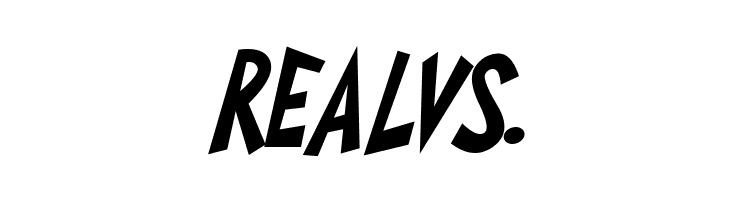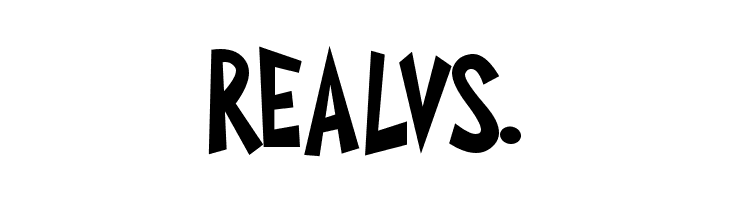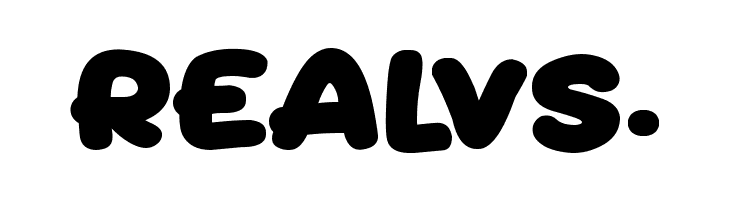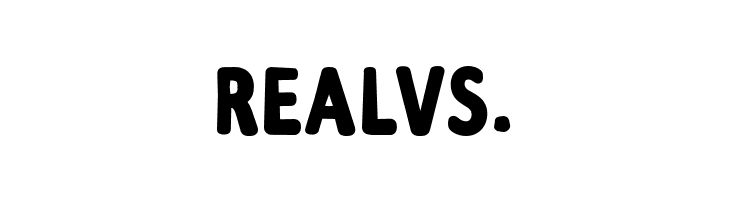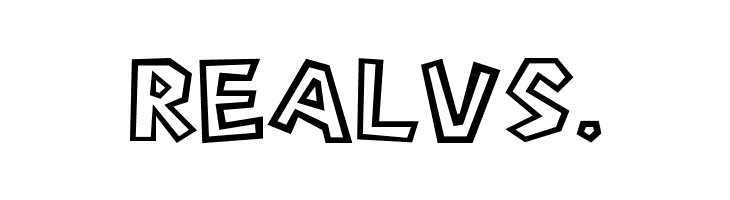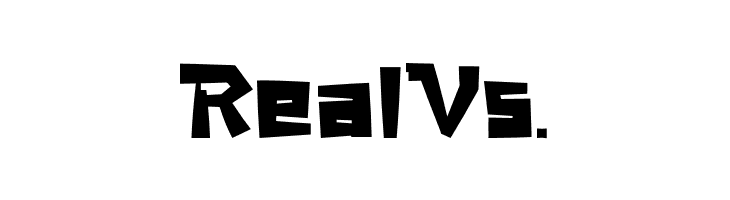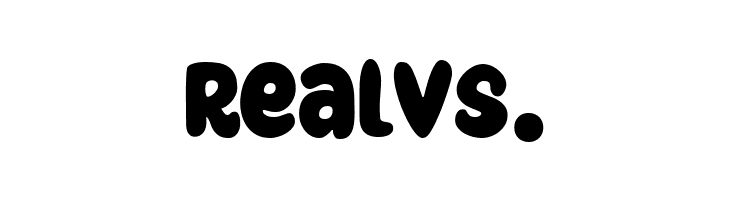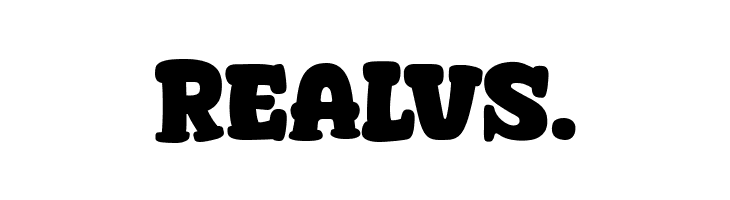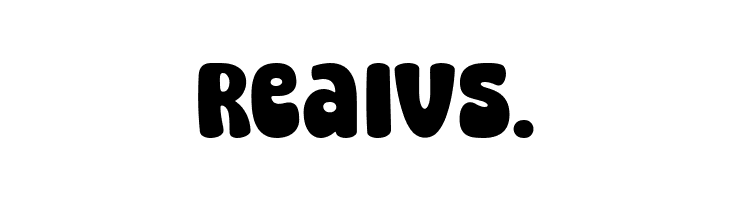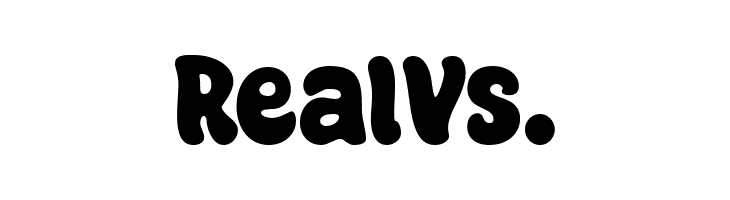
( Fonts by fsuarez913 )
A bold, playful font with thick, rounded strokes and a whimsical style.
( Fonts by fsuarez913 )
A playful, bold font with rounded, bubbly characters perfect for fun and creative projects.
( Fonts by fsuarez913 )
A bold, playful font with rounded edges and a vintage feel.
( Fonts by fsuarez913 )
A bold, playful font with thick, rounded strokes and high contrast.
( Fonts by fsuarez913 )
A playful, bold font with rounded, bubbly characters ideal for fun and approachable designs.
( Fonts by fsuarez913 )
A bold, rounded font with a playful and friendly style.
( Fonts by fsuarez913 )
A playful, bold font with rounded, bubbly characters.
( Fonts by fsuarez913 )
A bold, playful font with rounded, uniform strokes and a whimsical touch.
( Fonts by fsuarez913 )
A bold, distressed font with a vintage, handcrafted look.
( Fonts by fsuarez913 )
A bold, playful font with rounded edges and a retro comic style.
( Fonts by fsuarez913 )
A bold, rounded, and playful font with a chunky appearance.
( Fonts by fsuarez913 )
A playful, bold font with rounded, bubbly characters.
( Fonts by fsuarez913 )
A bold, playful font with a bubbly, organic design and retro vibes.
( Fonts by fsuarez913 )
A bold, playful font with rounded, thick strokes and a bubbly appearance.
( Fonts by fsuarez913 )
A bold, playful font with a glossy, bubbly design and shiny highlights.
( Fonts by fsuarez913 )
A bold, rounded font with a playful, retro style.
( Fonts by fsuarez913 )
A bold, chunky font with a playful, stone-like appearance.
( Fonts by fsuarez913 )
A bold, playful font with rounded edges and a bubbly appearance.
( Fonts by fsuarez913 )
A playful, bold font with rounded, hand-drawn characters.
( Fonts by fsuarez913 )
A bold, playful font with rounded, thick strokes and a bubbly appearance.
( Fonts by Darrell Flood )
A bold, cartoonish font with a playful and dynamic style.
( Fonts by Darrell Flood )
A bold, italicized font with a playful, cartoonish style.
( Fonts by fsuarez913 )
Bold, rounded, and playful font.
( Fonts by fsuarez913 )
A bold, playful font with rounded, bubbly characters perfect for fun and whimsical designs.
( Fonts by fsuarez913 )
A bold, playful font with rounded, thick strokes and a friendly appearance.
( Fonts by fsuarez913 )
A playful, bold font with rounded edges and a bubbly appearance.
( Fonts by fsuarez913 )
A playful, bold font with rounded, bubbly characters ideal for creative projects.
( Fonts by Eko Samp )
A bold, rounded font with a playful and approachable style.
( Fonts by Darrell Flood )
A bold, rounded font with a playful and chunky style.
( Fonts by Darrell Flood )
A bold, playful, and rounded italic font with a smooth, dynamic appearance.
( Fonts by Display Studio )
A bold, angular font with a geometric and edgy design.
( Fonts by Muhammad Yafinuha )
A bold, playful font with thick, rounded characters and a bubbly appearance.